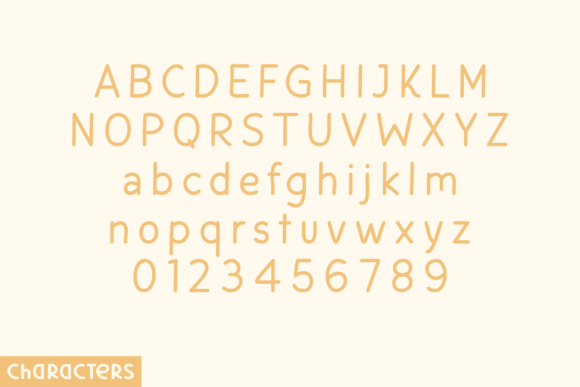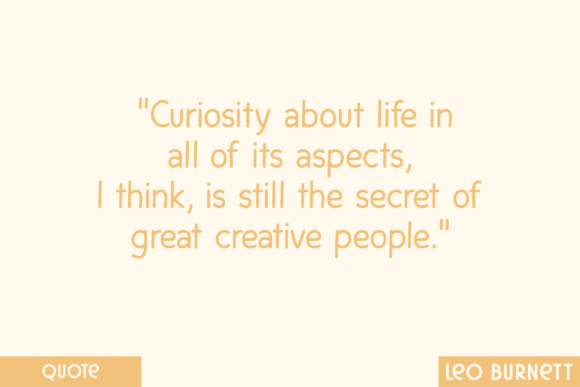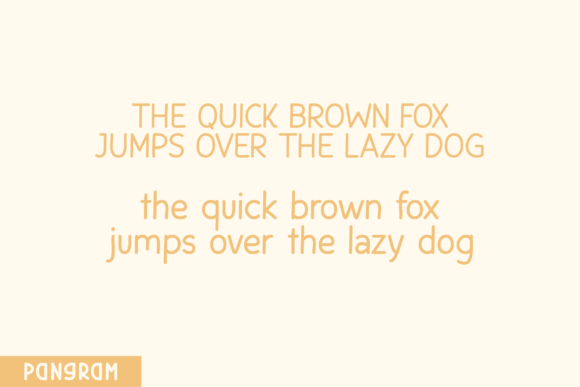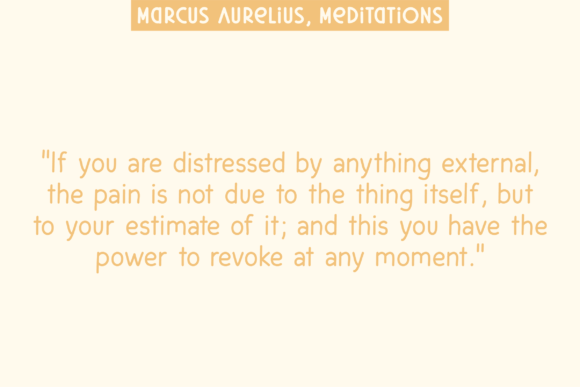
Introducing Banana Pudding Font: The Ultimate Modern Sans Serif for Your Designs
Are you on the hunt for a font that exudes elegance and modernity? Look no further than the Banana Pudding font! This stunning sans serif font is perfect for designers and crafters who want to add a touch of sophistication to their work. With its minimalist and clean vibe, Banana Pudding font is an excellent choice for a wide range of design projects, from book covers to social media posts.
What Makes Banana Pudding Font Stand Out?
Banana Pudding font boasts a unique and modern design that sets it apart from other sans serif fonts. Its clean lines and minimalist aesthetic make it perfect for designs that require a touch of elegance and sophistication. Whether you’re working on a book cover, magazine layout, or social media post, this font is sure to elevate your design to the next level.
Key Features of Banana Pudding Font
- Modern Sans Serif Design: Banana Pudding font features a sleek and modern sans serif design that’s perfect for contemporary designs.
- Minimalist and Clean Vibe: The font’s minimalist and clean aesthetic makes it easy to read and perfect for designs that require a touch of elegance.
- Highly Versatile: Banana Pudding font can be used for a wide range of design projects, including book covers, magazines, social media posts, invitations, and more.
- Elegant and Sophisticated: The font’s elegant and sophisticated design makes it perfect for designs that require a touch of luxury and refinement.
Use Cases for Banana Pudding Font
Banana Pudding font is an incredibly versatile font that can be used for a wide range of design projects. Here are some use cases to get you started:
- Book Covers: Add a touch of elegance to your book covers with Banana Pudding font. Its modern sans serif design and minimalist aesthetic make it perfect for fiction and non-fiction books alike.
- Magazines: Use Banana Pudding font to create stunning magazine layouts that exude sophistication and elegance.
- Social Media Posts: Elevate your social media posts with Banana Pudding font. Its clean and modern design makes it perfect for creating engaging and eye-catching social media content.
- Invitations: Create beautiful and elegant invitations with Banana Pudding font. Its sophisticated design makes it perfect for weddings, parties, and other special events.
Tips for Using Banana Pudding Font
Here are some tips to help you get the most out of Banana Pudding font:
- Pair it with Other Fonts: Experiment with pairing Banana Pudding font with other fonts to create a unique and visually appealing design.
- Use it for Headings and Titles: Use Banana Pudding font for headings and titles to add a touch of elegance and sophistication to your design.
- Experiment with Different Colors: Try out different colors with Banana Pudding font to create a design that’s both visually appealing and effective.
Banana Pudding font is an elegant and modern sans serif font that’s perfect for designers and crafters who want to add a touch of sophistication to their work. With its minimalist and clean vibe, this font is highly versatile and can be used for a wide range of design projects. Whether you’re working on a book cover, magazine layout, or social media post, Banana Pudding font is sure to elevate your design to the next level.